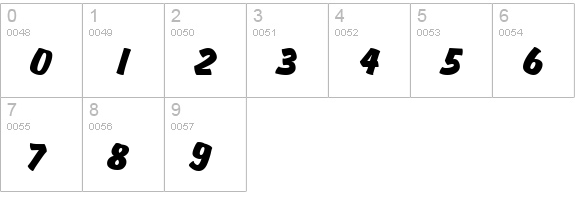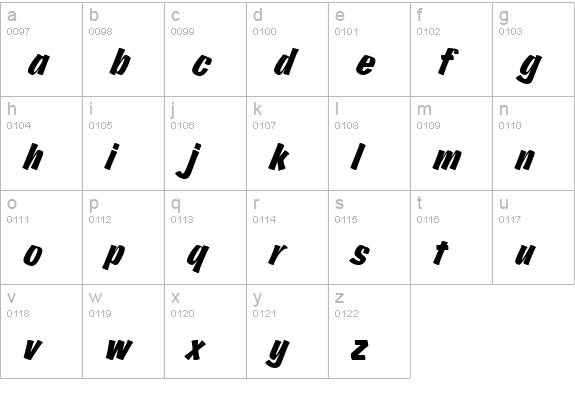
Josephs-Brush-Italic Font Details
Josephs-Brush-Italic is a distinctive, italic variant in the Josephs typeface family \xE2\x80\x94 well suited to design and typography projects.
Josephs-Brush-Italic is a beautifully designed font that combines elegance with a touch of artistic flair. Its calligraphic strokes exude sophistication and charm, making it perfect for adding a touch of class to any project. The italicized style adds a dynamic and modern twist, making it versatile for a wide range of design applications. What sets Josephs-Brush-Italic apart is that it is not only visually stunning but also freely available for download at FontsMarket.com. This means that you can easily access this high-quality font without any cost, making it an excellent choice for both personal and commercial use. Whether you're working on a branding project, wedding invitation, or any other creative endeavor, Josephs-Brush-Italic is sure to elevate your design and leave a lasting impression.